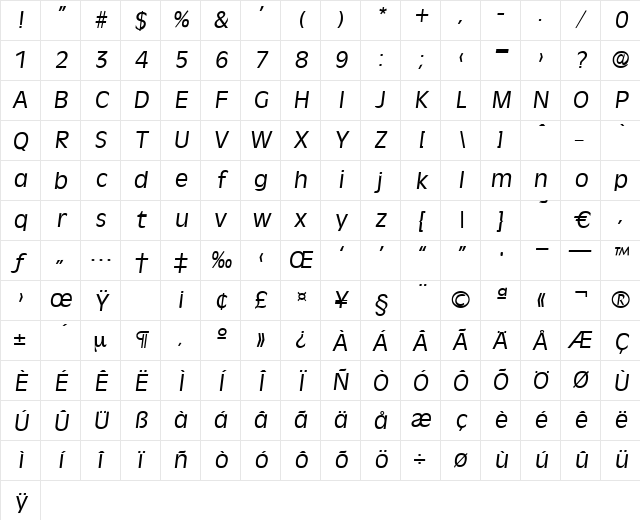
Ravenna-RegularIta Regular
Design Context for Ravenna-RegularIta
Ravenna-RegularIta is a composed and adaptable typeface that performs quietly and consistently across a wide range of design contexts.
Pro Tip: Use Ravenna-RegularIta in both headline and body roles to test its range before committing to a single application.